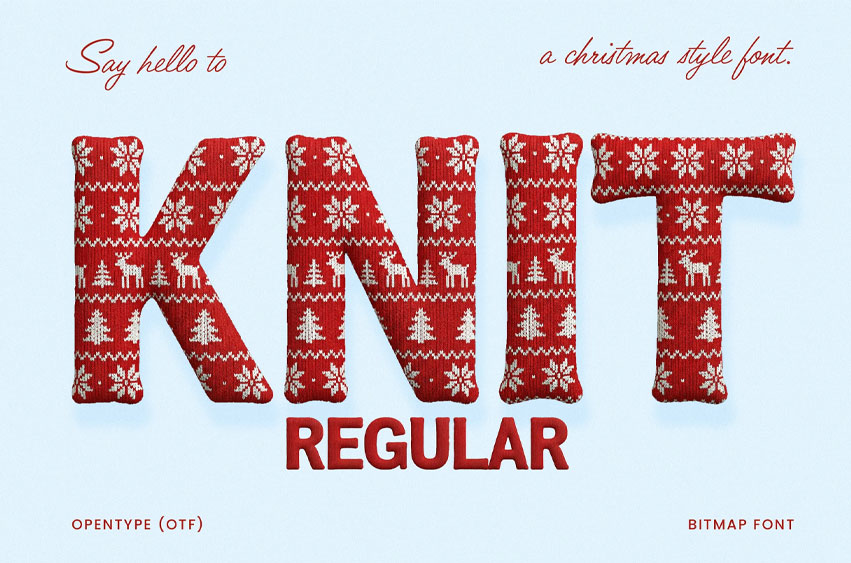
Knit Regular Font
Knit Regular Font is a cheerful Christmas display font inspired by classic knitted sweaters and holiday patterns. Each letter is designed to look like soft, padded fabric wrapped in traditional Nordic knit motifs—snowflakes, reindeer, and evergreen trees—giving your designs a warm and nostalgic handmade feel.
With its realistic woven texture and playful dimensional look, KNIT brings instant holiday spirit to any project.
• Winter product labels
• Holiday sales graphics
• Christmas event posters
• Greeting cards
• Christmas party invitations